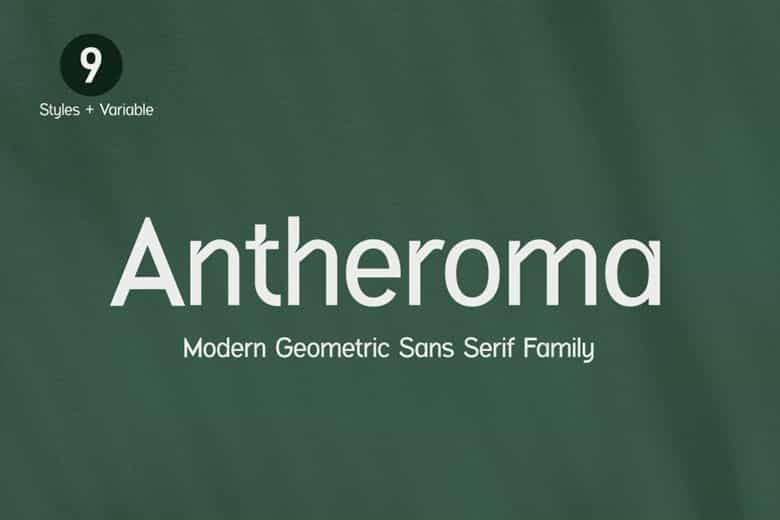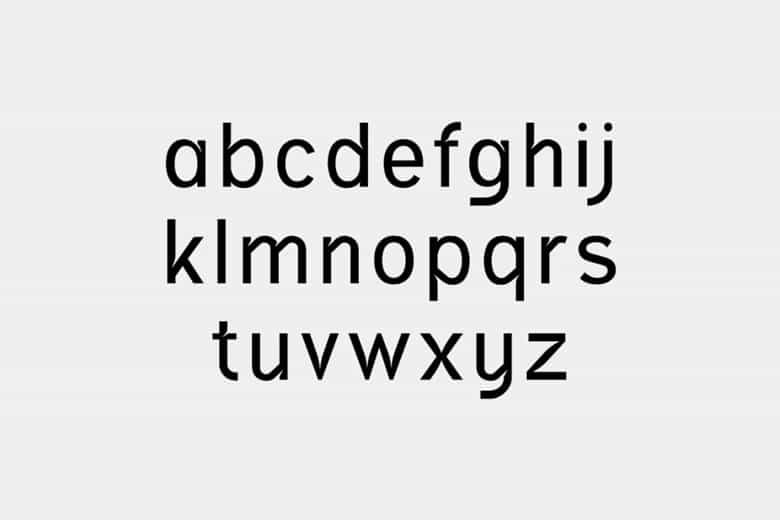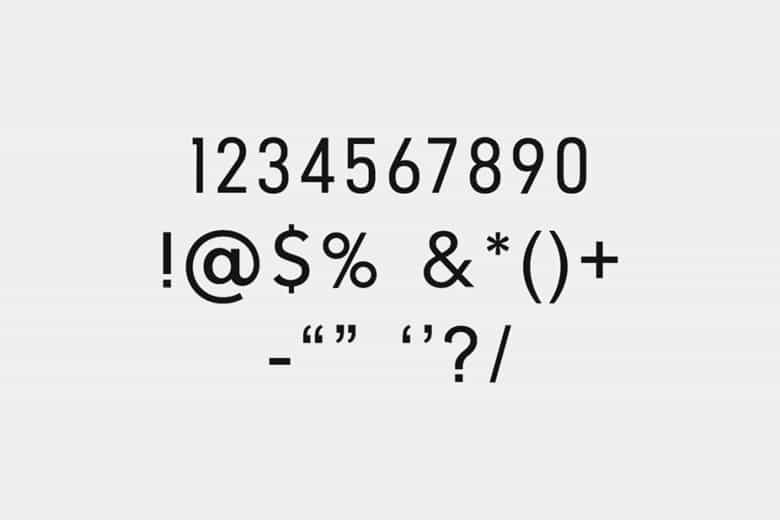
Antheroma is a modern geometric sans serif font. This font is perfect for use in many different projects for example logo, wedding, magazine or book covers, website headers, branding, and many more. Fashion branding as well as the fashion editorial design possesses the elements of both the masculine and the feminine.